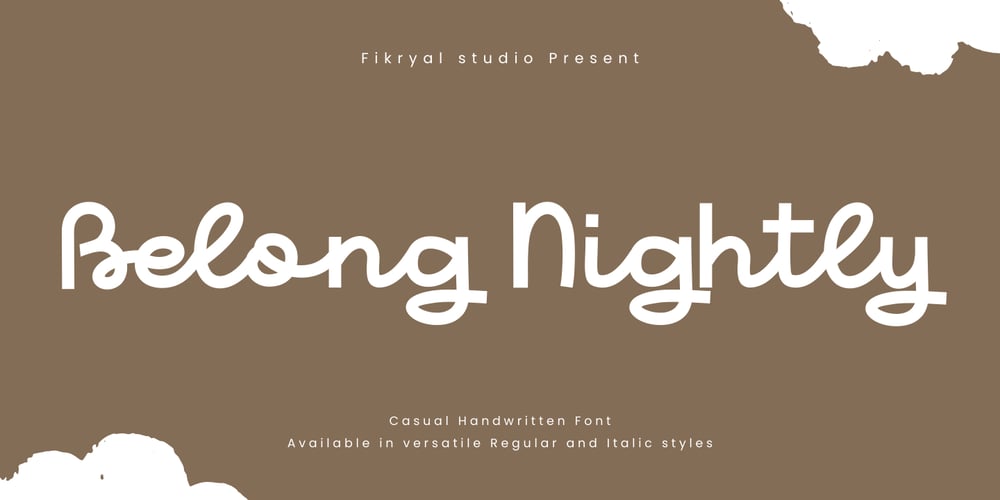
Belong Nightly Font Family was designed by Muhammad Fikry and published by Fikryal. Belong Nightly contains 2 styles and family package options. Belong Nightly – Casual Handwritten Font Offers a beautifully casual script handwriting style perfect for adding a personal touch to any design project.With two versatile styles, Regular and Italic, this font brings a natural, hand-drawn feel to branding, social media, invitations, or posters.Its soft and smooth strokes create a warm and approachable look, making it ideal for casual yet elegant design needs. Whether you’re crafting logos, quotes, or personal projects,Belong Nightly provides both charm and flexibility for your creative expression.If you have any questions please don’t hesitate to contact mefollow my Instagram: fkryallThank you